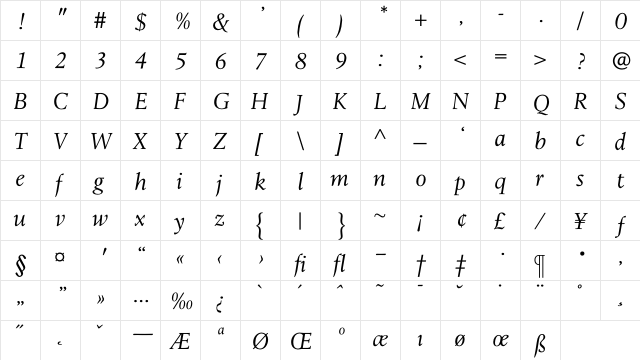
LeightonLightItalic Regular Font Preview
LeightonLightItalic Regular
Design Context for LeightonLightItalic Typeface
LeightonLightItalic takes a measured approach to typography — its balanced proportions and neutral character make it a reliable workhorse for both digital and print work. The slanted form adds forward momentum and visual energy. Its slender proportions lend an understated elegance to any composition.
Pro Tip: Use LeightonLightItalic for emphasis, pull quotes, and subheadings where its slanted energy can add rhythm to the layout.